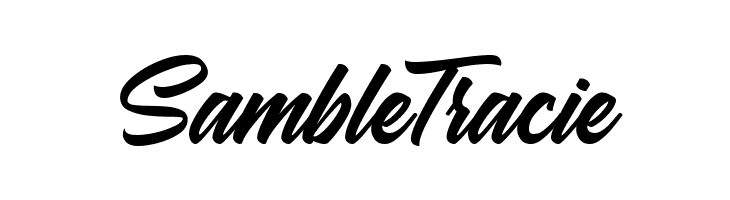
A bold, flowing script font with interconnected characters and a dynamic style.
A bold, dynamic script font with fluid, cursive strokes and a strong visual impact.